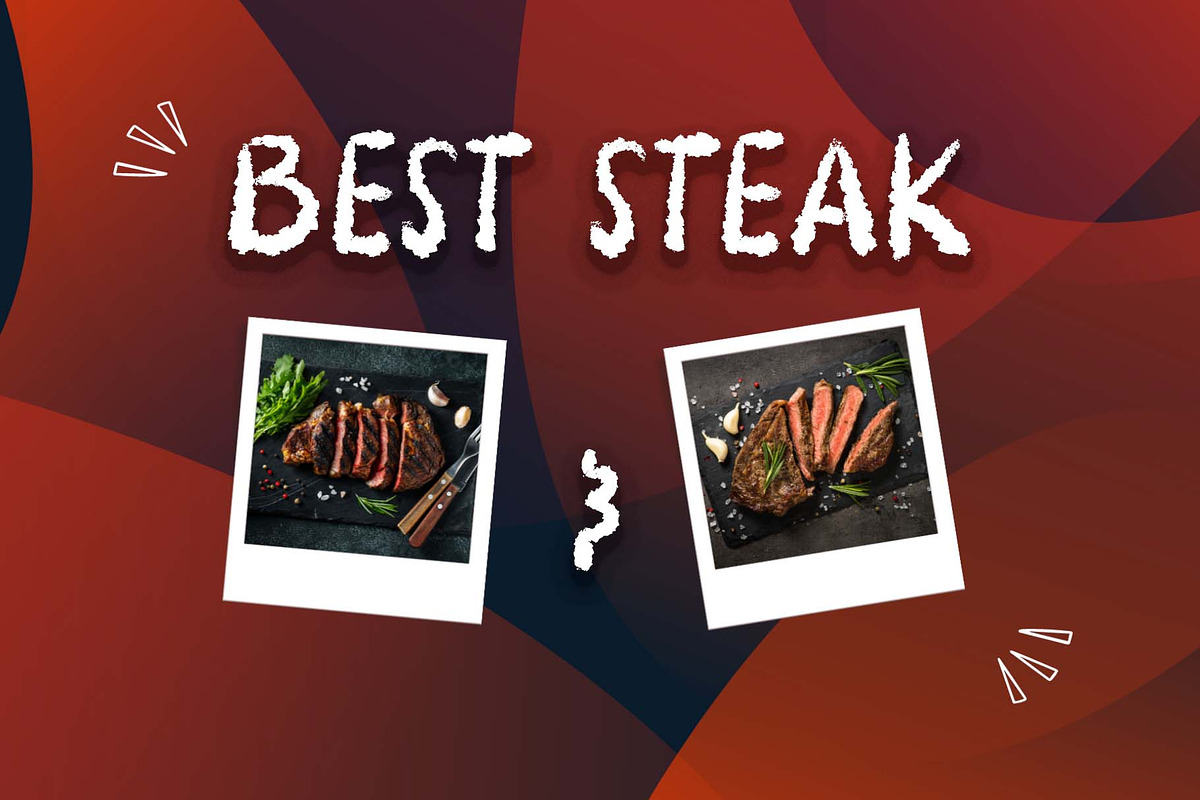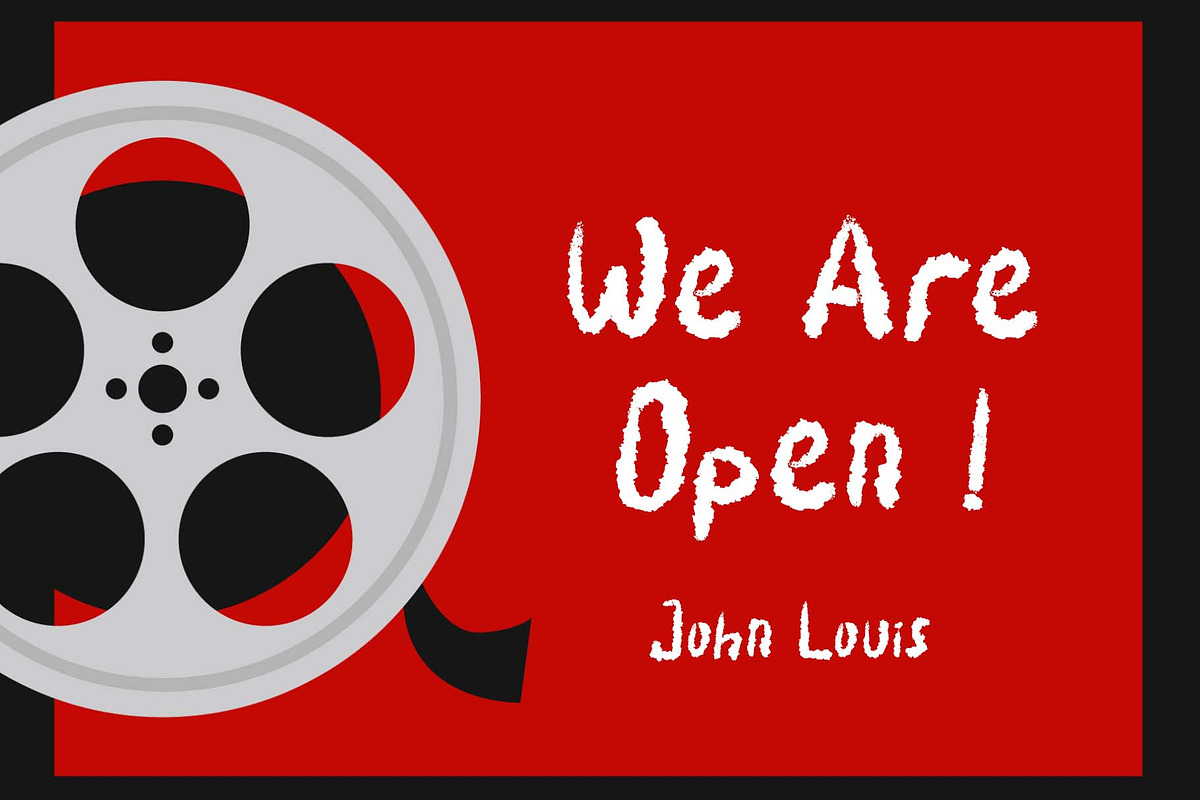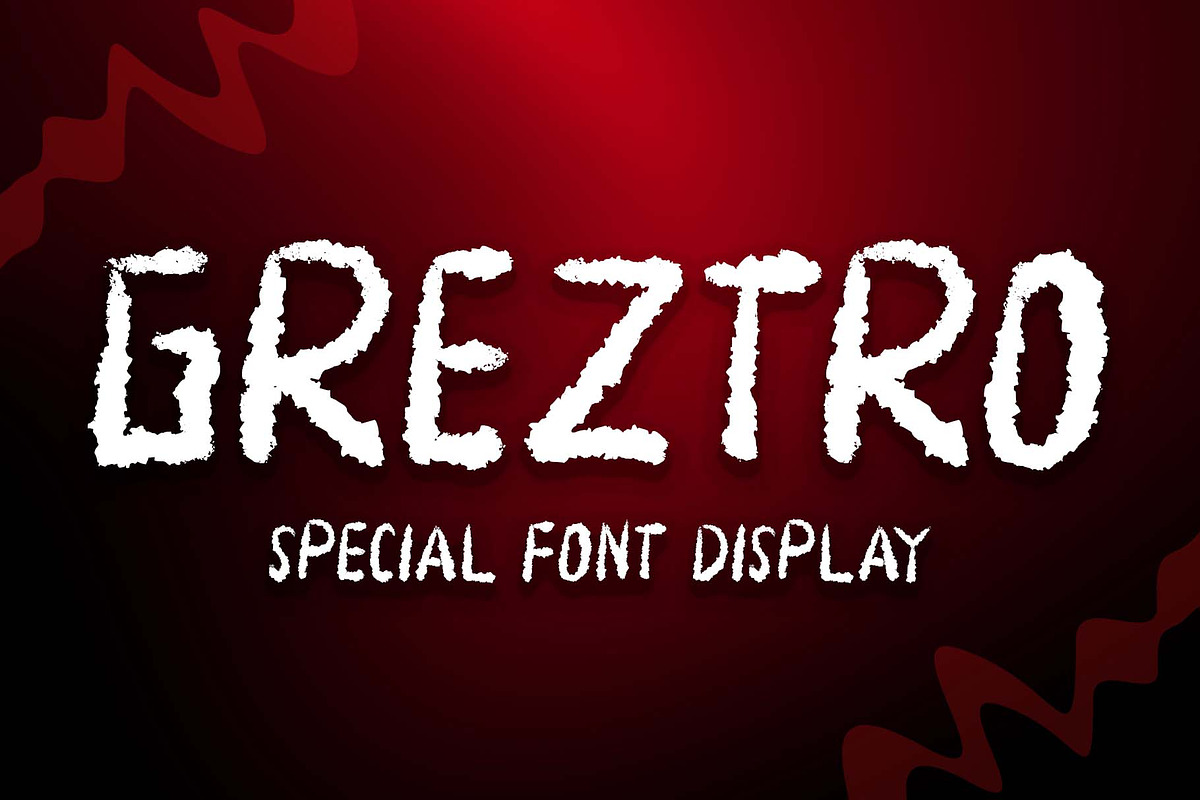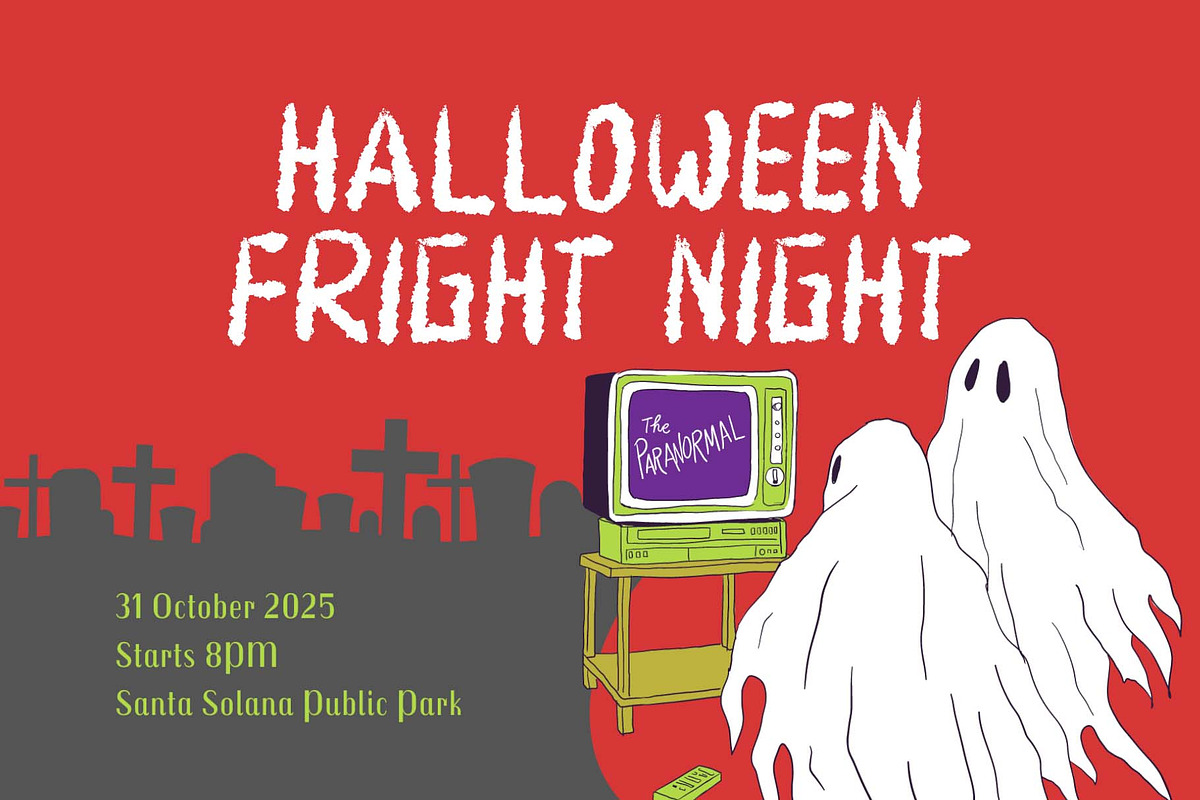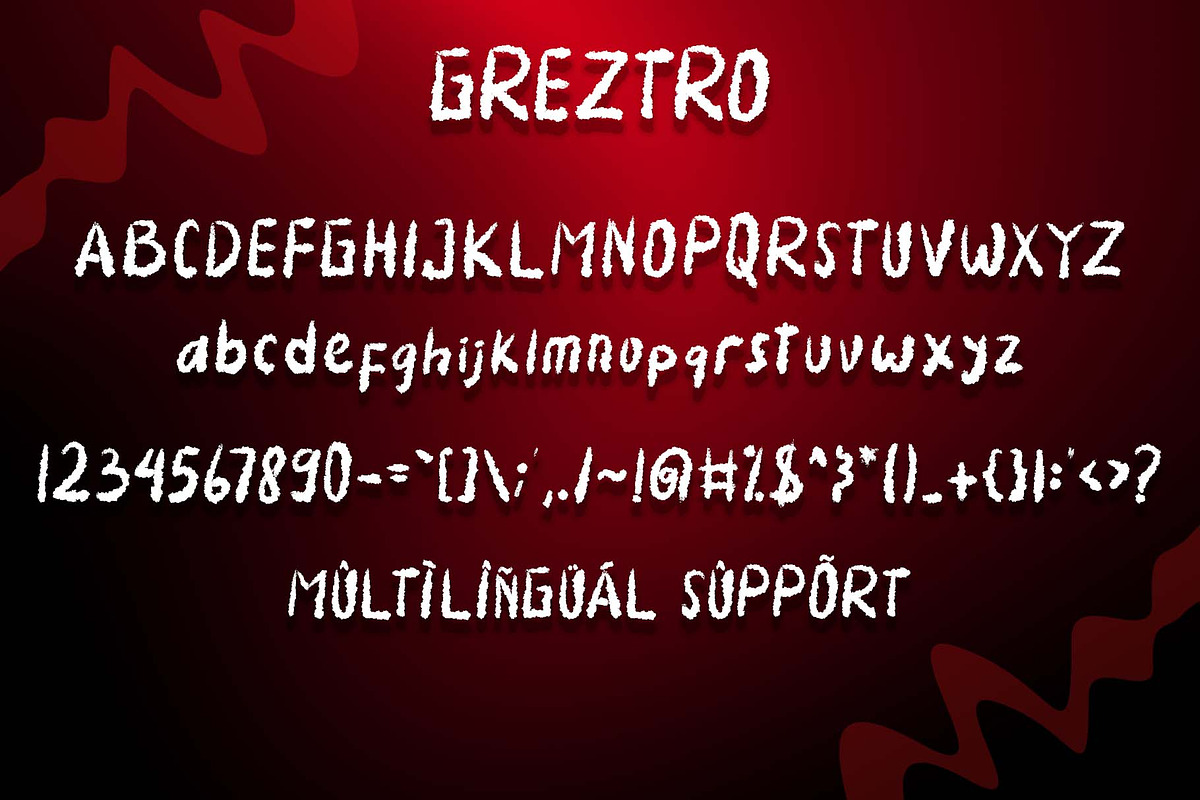
Greztro
"Greztro" is a unique display font. This font is equipped with uppercase, lowercase, numerals, punctuation, and multilingual support. It is suitable for Cinco de Mayo, Father's Day, Halloween, Christmas, stickers, posters, banners, branding, and others.